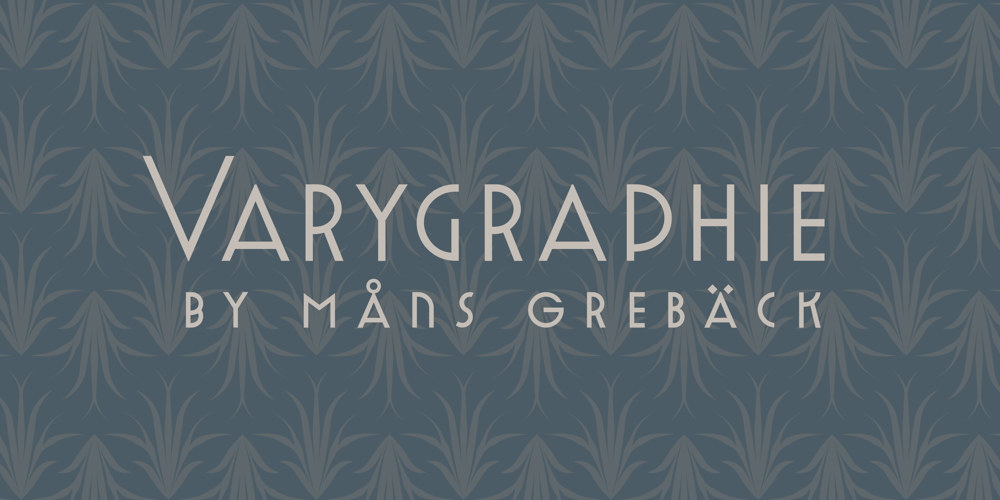
Varygraphie Font Family was designed by Måns Grebäck and published by Mans Greback. Varygraphie contains 13 styles and family package options. Varygraphie is a modern Art Deco sans-serif family. This expressive typeface is provided as a variable font, and was designed by Mans Greback between 2019 and 2023.It gives any project a modernist appearance, as a reinvention of the hundred-year-old style of design, adapted and adjusted to fit in present-time purposes and technology.The Varygraphie family contains 12 high-quality styles: Thin, Light, Regular, Medium, Bold and Black, and each weight as Italic. Mix the weights to see how they balance perfectly against each other.Or use the variable font and set any weight between Thin and Black: Only one font file, but the file contains multiple styles. Use the sliders in Illustrator, Photoshop or InDesign to manually set any weight and width. This gives you not only the predefined styles, but instead more than a thousand ways to customize the type to the exact look your project requires. More info about variable fonts: https://mansgreback.com/variable-fontsThe font is built with advanced OpenType functionality and has a guaranteed top-notch quality, containing stylistic and contextual alternates, ligatures and more features; all to give you full control and customizability. It has extensive language support, covering all Latin-based languages, from Northern Europe to South Africa, from America to South-East Asia. It contains all characters and symbols you’ll ever need, including all punctuation and numbers.